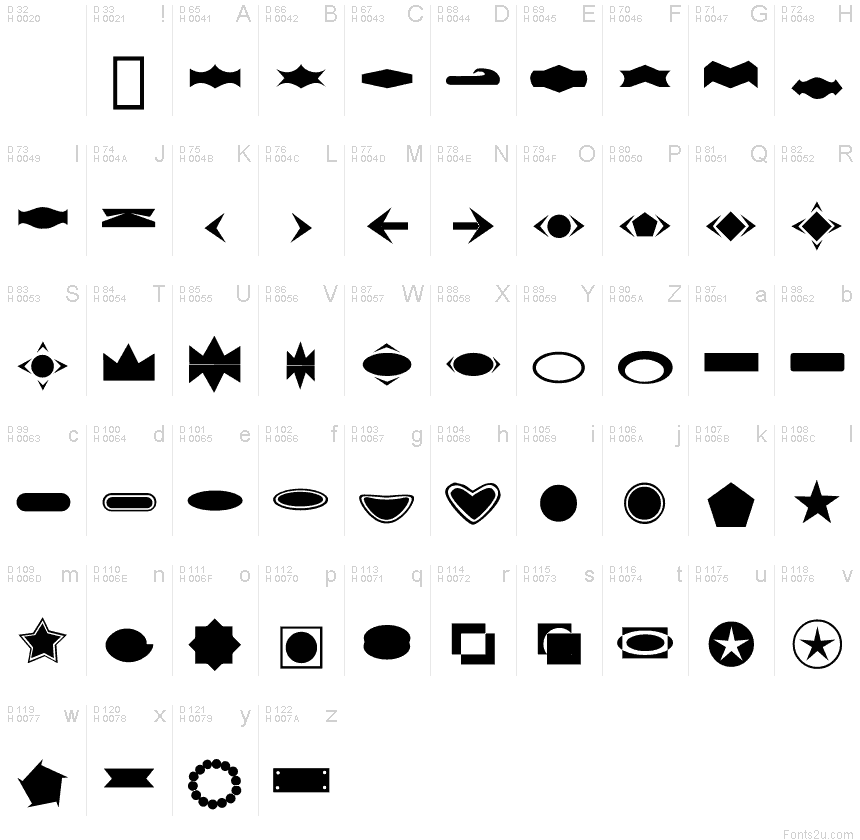
button_by_fanta
button_by_fanta font is a free dingbat button typeface that turns simple shapes into ready-made interface elements. Thick black forms with crisp white outlines create rectangles, pills, ovals, badges, hearts, stars, and house-like markers that pop instantly against any background. Everything feels bold, tactile, and clickable, so you can drop in icons that read like real buttons without drawing them from scratch.
Using button_by_fanta, this free font becomes a quick toolkit for web call-to-action graphics, app mockups, social media stickers, labels, price tags, and playful UI dashboards. The consistent weight and outline keep a clean rhythm, even when you mix several shapes on one line. For a polished look, pair these dingbats with a simple geometric sans serif, and keep the icons slightly larger than the text so they function as clear tap targets.